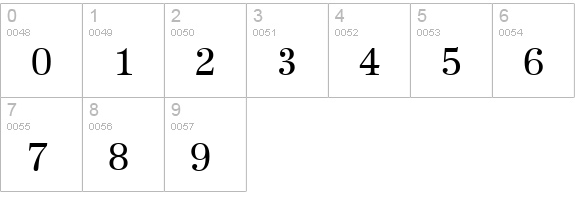
Antiqua-Regular is the standard, neutral variant in the Antiqua typeface family \xE2\x80\x94 well suited to general body text, paragraphs, and standard typographic work.
Antiqua-Regular is a classic and elegant font that exudes sophistication and timeless appeal. With its clean lines and balanced proportions, this typeface is perfect for a wide range of design projects, from branding to editorial layouts. The versatility of Antiqua-Regular makes it a popular choice among designers looking for a reliable and stylish font option. Best of all, Antiqua-Regular is available for free download at FontsMarket.com. Whether you're working on a personal project or a professional design, you can easily access this high-quality font without any cost. Don't miss out on the opportunity to elevate your designs with the beauty and grace of Antiqua-Regular. Download it today and add a touch of elegance to your next project.